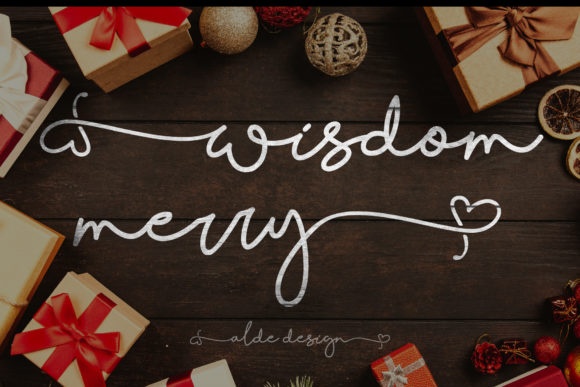
Wisdom Merry Font
Experience the epitome of elegance and sophistication with Wisdom Merry Font, a captivating script font that embodies the essence of class and refinement. Its meticulously crafted characters dance across the page with an effortless grace, exuding a timeless charm.
Immerse yourself in the captivating allure of Wisdom Merry, a script font that effortlessly blends the beauty of nature with the elegance of art. Its graceful lines flow seamlessly, creating a harmonious balance that draws the eye and captivates the senses.
Embrace the allure of wisdom and joy with Wisdom Merry Font, a captivating creation that adds a touch of magic to your designs. Let its enchanting characters guide you towards inspired expressions, capturing the essence of your heartfelt messages.
Unleash your creativity with Wisdom Merry Font, a versatile companion for any design endeavor. Its enchanting script seamlessly complements a wide range of projects, adding a touch of whimsical charm to invitations, branding, and heartfelt messages.
Indulge in the sophistication of Wisdom Merry Font, a timeless treasure that elevates your designs to new heights. Its refined elegance adds a touch of allure to logos, packaging, and any project that demands a touch of timeless grace.